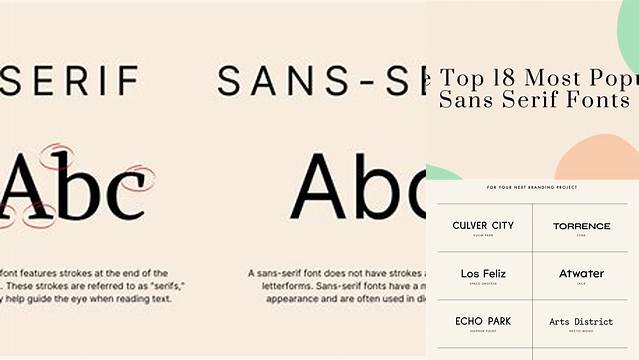
Top Sans Serif Fonts Set To Dominate 2026
Hey font fanatics! Are you ready to dive into the future of typography? We're taking a sneak peek at the most popular sans serif fonts 2026 will be rocking, and trust me, it's going to be a stylish year. Sans serif fonts, known for their clean lines and modern aesthetic, have become a staple in design, and their influence is only set to grow. In this article, we'll explore what makes these fonts so beloved, analyze current trends, and predict which ones will be the stars of the show in 2026. Get ready to update your font library and stay ahead of the curve!
1. The Enduring Appeal of Sans Serif Fonts
So, why are sans serif fonts so darn popular, anyway? Well, guys, it's all about versatility and readability. These fonts, which lack the small decorative strokes (serifs) at the end of letters, offer a clean, uncluttered look that's perfect for both digital and print media. Their simplicity makes them incredibly adaptable, working well in everything from website headers and body text to branding and advertising materials. Think about it: a website with a complex font can be a nightmare for users; a clear, concise sans serif font ensures content is easily digestible. This clarity is especially crucial in a world where information overload is the norm. They are designed to be functional and aesthetically pleasing, creating a visually appealing experience. They often feel modern, dynamic, and forward-thinking, appealing to audiences that desire innovation and simplicity. Sans serif fonts are also incredibly diverse; they come in a massive range of weights, styles, and personalities, allowing designers to find the perfect fit for any project. Whether it's the bold statement of a geometric font or the subtle elegance of a humanist design, there's a sans serif out there for everyone. In 2026, we'll likely see a continuing trend of designers using sans serif fonts to convey confidence, approachability, and a sense of modernity. The ease of reading is also a major plus, particularly on screens where serifs can sometimes appear blurry. Their clean lines translate well to different screen sizes and resolutions, making them a top choice for the digital age. This makes them ideal for user interfaces (UI) and user experiences (UX), as well as for marketing and branding. Ultimately, sans serif fonts offer a balance of aesthetics and functionality that's tough to beat.
2. Key Trends Shaping Sans Serif Font Choices
Alright, let's talk trends, because these are essential for predicting the most popular sans serif fonts 2026. Right now, designers are leaning heavily into minimalist design principles, which translates to clean, simple, and highly legible fonts. This trend is being driven by the desire for a streamlined user experience and a focus on content over ornamentation. The rise of mobile-first design also plays a massive role; fonts need to look good on small screens, and sans serifs excel here. Another trend is the integration of variable fonts, which allow for dynamic adjustments of weight, width, and style within a single font file. This offers incredible flexibility and allows designers to create custom typographic solutions. We also see a growing interest in sustainable and ethical design, which can impact font choices. Designers are looking for fonts that are environmentally friendly and support diverse communities. This includes the use of open-source fonts and those that reflect cultural diversity. Geometric sans serifs are making a big comeback, as they provide a modern and clean feel. They are often used for headlines, logos, and branding, but their application is expanding into longer blocks of text. Humanist sans serifs, known for their warmth and readability, are also gaining traction. These fonts have a slightly more organic feel compared to their geometric cousins, making them perfect for creating a friendly and approachable aesthetic. Finally, we will see the growing popularity of custom-designed sans serif fonts tailored for specific brands or projects. This reflects a move toward unique and distinctive design elements that help brands stand out in a crowded market. These custom fonts often become iconic and can be a key element of a brand's identity.
3. The Rise of Geometric Sans Serif Fonts
Geometric sans serif fonts are characterized by their clean lines, consistent shapes, and mathematical precision. They often feature perfectly round Os and simple, unadorned letterforms. In 2026, expect to see these fonts continue their reign, especially for branding, logos, and headlines. Their modern, streamlined aesthetic is ideal for conveying a sense of innovation, professionalism, and modernity. Popular examples include Futura, which has been a design classic for decades, and Montserrat, which is a more contemporary take on the geometric style. The appeal of geometric sans serifs lies in their simplicity and versatility. They work well in various contexts, from high-tech companies to fashion brands, and they are incredibly readable, even at small sizes. This makes them a great choice for both digital and print applications. Designers use these fonts to create a clear visual hierarchy and ensure that content is easily digestible. The clean lines and consistent shapes of geometric fonts also give designers a solid base for creating unique layouts and design elements. The simplicity allows these fonts to blend seamlessly with any design, without overpowering the other visual elements. This is particularly helpful in creating a cohesive brand identity. In 2026, expect to see more designers experimenting with variations of geometric sans serifs, adding unique touches to make these fonts even more appealing. This might include different weights, slants, or custom-designed letterforms. The focus will remain on creating visually striking designs that are functional, readable, and memorable. Expect also the wider use of these fonts in motion graphics and animation, where their simple forms make them easy to manipulate and animate.
4. Humanist Sans Serif Fonts: A Touch of Warmth
On the other hand, humanist sans serif fonts offer a slightly more organic feel. They're designed to mimic the stroke variations found in hand-written calligraphy, making them feel more approachable and less rigid than geometric styles. In 2026, humanist fonts will be perfect for brands that want to convey a sense of friendliness, approachability, and trust. Think of them as the cozy alternative to the crispness of geometric fonts. They are known for their excellent readability, making them suitable for body text, and offering a friendly aesthetic. Examples include Gill Sans, which is a classic choice for creating a warm and inviting design, and Open Sans, which is incredibly popular for its balance of readability and style. They are also popular because they can be used in a wide range of applications. They are often used for branding and websites. Humanist fonts' appeal lies in their versatility and ability to create a friendly and approachable aesthetic. They feel less rigid and technical than geometric fonts and can be used to create a wide range of different design aesthetics. For brands that want to create a more human connection with their audience, humanist sans serif fonts can be the perfect choice. The gentle curves and varied strokes in these fonts give them a more organic feel, making them great for long blocks of text. They are also very legible, even at smaller sizes, which makes them an excellent choice for body text. Expect to see them featured heavily in editorial design, packaging, and in brands that want to create a sense of community.
5. Variable Fonts: The Future of Flexibility
Variable fonts are a game-changer in the world of typography. They are single font files that can contain multiple variations of a font, allowing designers to dynamically adjust weight, width, and style. This level of flexibility offers incredible design possibilities. In 2026, variable fonts will continue to gain momentum, offering designers unprecedented control over their typography. They can be used to create responsive designs that adapt to different screen sizes and resolutions. They offer a unique design solution. Their ability to create dynamic layouts is a key feature, offering a powerful tool in branding and UI design. With variable fonts, designers don't have to choose between multiple font files for different weights or styles; they can simply adjust the font's properties within a single file. This can reduce file size, improve website loading times, and create more adaptable designs. They are not just a trend; they represent a fundamental shift in how fonts are created and used. The flexibility makes them ideal for web design and responsive layouts, and they allow for a greater degree of creative expression. Expect to see them used across all areas of design in 2026, from web design to print. Expect to see them used in the creation of dynamic logos and branding materials, providing designers with the ability to create unique designs. Variable fonts will provide new opportunities for interaction and animation, and their adaptability will be crucial for the future.
6. Monospaced Sans Serif Fonts: Back to Basics
Monospaced fonts, where each character takes up the same amount of horizontal space, might seem like a throwback, but they are experiencing a modern renaissance. These fonts are often used in coding and technical documentation because they create clean and organized layouts. In 2026, we'll see them used more creatively, particularly for adding a retro or industrial touch to design. They are also making a splash in web design and branding, as their unique look provides a distinctive visual impact. They are easily readable and have a great aesthetic. The consistency in spacing makes them ideal for presenting information clearly and concisely. This makes them great for displaying data, such as code, but also for creating a visual interest. They are great for creating a retro look. In 2026, they will be used in more diverse contexts than ever before. Expect them to appear in branding, websites, and editorial design. Their visual simplicity gives them a distinct advantage in a world full of visual clutter. Monospaced fonts are a great way to add character to any design project. They are both functional and visually appealing. They are also finding popularity in minimalist designs, where the regular spacing creates a sense of order and balance.
7. The Rise of Display Sans Serif Fonts
Display sans serif fonts are designed for headlines, titles, and short bursts of text. These fonts often have unique features that make them unsuitable for body text but perfect for grabbing attention. In 2026, we'll see a huge increase in their use, as designers seek to create visually striking designs. Their bold and distinctive styles help to set the tone for the entire design project. Their use will continue in logos and branding, as they can communicate the brand's personality effectively. They are all about making a statement. They offer great visual variety, and are a fun and effective way to add a unique touch. Display fonts come in all shapes and sizes, from playful and whimsical to bold and dramatic. This variety will ensure their continued popularity. Display fonts will continue to gain popularity in marketing and advertising. They have the visual power to grab attention. In 2026, we can expect to see a wider range of display fonts being used in digital and print media, as brands strive to stand out from the competition. Designers use display fonts to convey different messages.
8. Hand-Drawn Sans Serif Fonts: Adding a Personal Touch
Hand-drawn sans serif fonts add a personal touch to a design. These fonts, which look as though they've been created by hand, can create a sense of warmth, authenticity, and approachability. They're perfect for brands aiming to connect with their audience on a personal level. In 2026, expect to see hand-drawn fonts used more and more, particularly in branding and packaging. Their casual, slightly imperfect feel can make a brand feel more relatable and less corporate. These fonts are incredibly versatile, lending themselves well to various applications, from branding to print designs. They are great for creating a unique brand identity and adding a personal touch. They are a perfect choice for businesses that want to express a unique personality. Hand-drawn fonts are great for creating a sense of authenticity, making them popular for brands aiming to connect with their audience on a personal level. They are also great for creating a visual identity, particularly for companies that want to stand out from their competition. They are a perfect way to add visual interest to any project. Hand-drawn fonts can be used in a range of different designs. Expect to see them continue to grow in popularity in 2026.
9. Sans Serif Fonts with a Retro Vibe
Retro fonts are always popular, and that includes sans serif fonts with a vintage feel. These fonts often draw inspiration from the mid-century modern era, the 1970s, or other retro periods. In 2026, designers will continue to seek out fonts that evoke nostalgia and a sense of classic design. These fonts can add a touch of sophistication and charm to any project, providing a distinctive visual identity. Retro fonts will be popular in branding, websites, and editorial design. Their distinct visual styles will help brands create a memorable identity. They also add a unique touch, making it an essential tool for any designer. This will make these fonts a staple. They offer an attractive aesthetic that appeals to a large group of audiences. They will be used for a variety of projects. They are a great option for adding an artistic touch. Sans serif fonts with retro vibes have a timeless appeal that fits a wide variety of designs. Expect to see them everywhere, from packaging to website design, in 2026.
10. The Importance of Readability in Sans Serif Fonts
Readability is the most important factor when choosing a sans serif font. No matter how stylish a font may be, it's useless if your audience can't easily read your content. In 2026, designers will place even greater emphasis on readability, especially in a world where people consume information on screens of all sizes. This means choosing fonts with clear letterforms, adequate spacing, and a good contrast between the font and background color. Readability ensures that the design is user-friendly and accessible to a broader audience. It is key to an effective design, and will therefore remain a priority. Choosing a font that is legible at various sizes and on different devices is very important. Designers will also have to consider the accessibility of their designs, making sure that fonts are readable for people with visual impairments. Clear letterforms and good spacing are critical for comfortable reading, especially for long passages of text. Designers will also have to take into account the different lighting conditions. The use of color contrast is critical. In 2026, designing for readability will be more than just a matter of aesthetics; it will be an ethical and practical necessity.
11. Sans Serif Font Combinations: Finding the Perfect Pair
Pairing the right sans serif fonts can make or break a design. The key is to find combinations that complement each other. This means considering the different styles, weights, and personalities of each font. In 2026, we'll see a continued emphasis on strategic font pairings that create visual harmony. Finding the perfect match is a fine art, requiring careful attention to detail. Experimenting with different pairings is always the best way to find the perfect match. You should look for a balance between contrast and similarity. Good font combinations provide a greater visual impact and help communicate a brand's message effectively. Combining different font weights and styles can help create visual interest and establish a clear hierarchy within the design. It will also increase the design's readability. Finding the perfect font pairing is a critical step. In 2026, designers will use font pairings that enhance the readability of the text. This is what will make the font pairing successful. The fonts that you choose will play a key role in the design.
12. Sans Serif Fonts and Branding: Creating a Visual Identity
Sans serif fonts play a critical role in branding, helping to communicate a brand's personality and values. The font you choose is one of the first things people see when they encounter your brand. In 2026, we'll see brands leveraging sans serif fonts to create strong visual identities that resonate with their target audiences. Your font choice will say a lot about your company. It helps to tell the brand's story. They are an essential element of any branding project. Using the correct font will help shape the overall perception of the brand. A strong font will improve the brand's visual appeal. By carefully selecting a sans serif font, a brand can express its personality. Choosing the right font can reflect the brand's values. In 2026, it will be a crucial part of building a cohesive brand identity. The right font choice will help you establish a strong presence. The chosen font must be well-suited for the brand's values.
13. Website Design: Using Sans Serif Fonts for the Web
Sans serif fonts are a top choice for website design, thanks to their clarity and readability. They perform well on screens of all sizes, making them perfect for creating a user-friendly online experience. In 2026, we'll see the continued dominance of sans serif fonts in web design, especially as mobile browsing continues to rise. They ensure that the content is easily accessible. Their ability to render well on different devices makes them a perfect choice. Choosing the correct font will also enhance the website's overall appeal and make it more engaging. A legible font is crucial to the user experience. The right font choice will also help to create a visual hierarchy, making the content easy to scan and digest. The fonts that you select will also have an impact on the site's SEO. They will also enhance the website's SEO. In 2026, we will see how these fonts are important for web design.
14. Print Design: Sans Serif Fonts for a Clean Look
Sans serif fonts work well in print. Their clean lines and simplicity make them ideal for creating a polished, professional look. In 2026, they'll continue to be popular in print design, offering readability, versatility, and a modern aesthetic. Their ability to fit any project will be key. They work well in print materials, such as brochures, magazines, and posters. They are a great way to add a touch of professionalism. The clean and modern look makes them perfect for communicating a brand's message effectively. In 2026, we'll see a continued use of sans serif fonts for print materials. They will continue to play a critical role in print design. The chosen font will have an important impact on the final output. They are the key to a great final design.
15. The Impact of Technology on Font Choices
Technology has a big impact on the fonts we use. The rise of high-resolution screens, variable fonts, and responsive design have all influenced font choices. In 2026, we'll see how technology continues to shape typography, pushing designers to embrace new tools and techniques. As technology continues to evolve, so will font design. This means that the fonts we use will change over time. Designers must adapt. High-resolution screens require fonts that render well. The demand for variable fonts will continue to grow. Designers will also need to consider the impact of different display technologies, such as augmented reality. Understanding these technological shifts is crucial. It helps to make sure the fonts that you select will look good in the future. The new tools and techniques will empower designers to explore new ways of working with type.
16. Font Licensing and Usage Rights: What You Need to Know
Font licensing and usage rights are essential considerations for any designer. It's important to understand the terms and conditions of each font license to avoid copyright issues. In 2026, we'll see a greater focus on ethical font practices. Choosing the right font can be critical. Designers will continue to be mindful of the licenses and usage rights. It's critical that you understand the terms and conditions before using a font. Choosing the right font can be critical. Selecting the correct license will ensure that you can use the font legally. This means reading the fine print of each license. You must comply with all the usage restrictions. These are the keys to making sure that you can legally use the fonts that you want. Designers will also explore the usage of open-source fonts.
17. Font Accessibility: Designing for Everyone
Font accessibility is about designing fonts that are readable for everyone. That means considering the needs of people with visual impairments or other disabilities. In 2026, we'll see designers placing greater emphasis on font accessibility. This means ensuring that the fonts they choose are legible. This is the key to accessibility. Accessibility is not just a matter of aesthetics; it's an ethical and practical requirement. It's essential for inclusive design. Designers will have to consider the readability of the font. They must make sure that fonts are readable on various screen sizes. This can be achieved by using a large font size. The color contrast between the text and the background is also important. The font selection will have a significant impact on accessibility.
18. The Influence of Culture on Font Trends
Cultural trends are the key to understanding font choices. The fonts you choose will have an impact. Cultural trends can influence typography. In 2026, we'll see a growing awareness of cultural diversity. Designers will seek to incorporate diverse fonts. The use of a diverse range of fonts can help make designs more inclusive. This means exploring fonts from different cultures and regions. These fonts will reflect the preferences of a broader audience. The global nature of design will also play a part. Designers will become more aware of font selections. They will be able to connect with people worldwide.
19. Sustainable Typography: Fonts for a Greener Future
Sustainable typography is a growing trend. Designers are now mindful of their choices. Their font choices will have an impact on their environment. In 2026, the use of eco-friendly fonts will rise. It's more than just a design trend. Font choice will be critical. Designers will explore fonts that consume less ink. This will have an impact on the amount of ink used in printing. Designers will also consider the environmental impact of font creation. They will have to make sure that their font choices are both aesthetically and environmentally friendly.
20. Font Design Tools: What's on the Horizon?
Font design tools are evolving constantly. New technologies make it easier for designers to create unique fonts. In 2026, designers will explore new tools. They will experiment with new capabilities. The new tools will have an impact. Artificial intelligence (AI) will play a key role. AI can help designers create unique and distinctive fonts. These tools will help to streamline the font design process. Designers can create more fonts. The new technologies will make it easier for designers to stay ahead of the curve. Designers will explore new ways to create fonts.
21. The Evolution of Font Weights and Styles
Font weights and styles continue to evolve. These are important for designers. In 2026, we will see more experimentation with font weights and styles. This includes different weights, slants, and widths. Designers will use them to create visually stunning designs. This means creating more unique and distinctive fonts. This is how you can draw attention to your brand. The new font styles will enhance the overall design. The use of variable fonts will continue. The options will be endless. Designers will have more freedom.
22. Typography in Motion: Animated Sans Serif Fonts
Typography in motion is trending. Designers use animations to make fonts more engaging. In 2026, we'll see the increasing use of animated sans serif fonts. They will be used for more than just visual appeal. The animated fonts will add a dynamic element to any design. These will be key to engaging users. Designers will use these in various applications. Expect to see it used in the world of social media and branding. This trend is a great way to make your designs more unique. These animations can capture attention.
23. Custom Sans Serif Fonts for Unique Branding
Custom sans serif fonts offer a way to create a unique identity. These are specifically designed for a brand. In 2026, expect a rise in custom fonts. They are a key way to reinforce brand identity. Custom fonts help brands stand out. This means they will create a more recognizable visual presence. They are a key element to any branding project. Custom fonts allow for creativity. These fonts are a key step in building brand recognition. They make your designs recognizable. They will become a key element of a brand’s strategy.
24. The Impact of Social Media on Font Trends
Social media has a huge impact on font trends. It has a very strong presence. Social media allows fonts to become more visible. In 2026, social media will continue to drive font choices. Social media is critical. Social media platforms often feature fonts. Trends emerge very quickly. Font choices are trending quickly. Social media will continue to be influential. The chosen fonts will have an impact on brand perception. Social media platforms drive this impact. The trends are constantly changing.
25. Serif vs. Sans Serif: Making the Right Choice
Choosing between serif and sans serif fonts requires a deep understanding of design. Serif fonts have small strokes at the end of the letters, while sans serif fonts do not. In 2026, the choice will depend on the project. The design must be considered. You must consider the message of the project. The overall purpose of the project will influence this. Sans serif fonts are known for being modern. The chosen font should reflect the design. Serif fonts are often used for long blocks of text. The choice will play a key role. The choice will depend on different factors. Choose the font that best suits the project.
26. Finding Free Sans Serif Fonts: Resources and Tips
Finding free sans serif fonts is easy. There are tons of free fonts. Online resources can provide free options. They can be used for personal and commercial projects. In 2026, designers will use a variety of resources to obtain fonts. You will find various platforms. These include Google Fonts, and Font Squirrel. There are some considerations. Always check the font license. Some fonts are only available for personal use. Make sure you stay on top of the guidelines. Staying within these guidelines is essential. Make sure you read these carefully. Following these guidelines is essential. You will not be restricted.
27. The Role of Sans Serif Fonts in Minimalism
Minimalism remains a key design trend. It's a great way to simplify your design. Sans serif fonts can enhance the clean look. In 2026, these fonts will be key. These fonts reflect a minimalist aesthetic. These fonts are both simple and functional. The fonts complement the minimalism. The simplicity of sans serif fonts is a great choice. Sans serif fonts will continue to shine. This means that minimalism will continue to dominate. They provide the foundation for minimalism. They are key to visual communication. The fonts give the overall design a unique look.
28. Mixing Sans Serif Fonts: Dos and Don'ts
Mixing sans serif fonts can be a challenge. You must make sure that the fonts complement each other. In 2026, you will see designers experimenting. The key is to avoid clashes. Choosing the right fonts is key. The goal is to create a unified look. Avoid mixing fonts that look too similar. Always create a clear visual hierarchy. Mixing fonts is a great option. The aim is to create a balanced design. The goal is to have all of the fonts look good together. You must have the right eye. Ensure there's a clear visual contrast.
29. Sans Serif Fonts and the Metaverse: Future Applications
The metaverse is emerging. This means that there is a shift in typography. Sans serif fonts are well-suited. In 2026, these fonts will continue to be valuable. The 3D world requires fonts. These fonts can be readable and accessible. This is key to a positive user experience. Designers are getting ready for the metaverse. The fonts must be accessible. Font choices will be critical. The use of fonts will have an impact on immersion. The correct font choice is critical.
30. Predicting the Next Big Sans Serif Fonts
Predicting the most popular sans serif fonts 2026 is no easy task. However, based on current trends and upcoming technologies, we can make some educated guesses. Expect to see a continued rise in geometric sans serifs for their clean, modern feel, and humanist sans serifs for their warmth and approachability. Variable fonts will also be huge, offering designers unprecedented control. The focus will be on readability, accessibility, and versatility. So, keep an eye out for the evolution of established classics and exciting new releases. The best way to stay ahead is to experiment and stay informed. Get ready to create your best work!